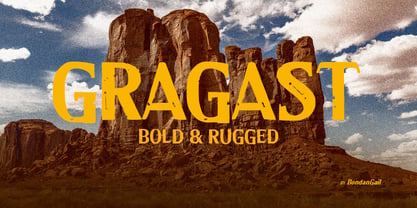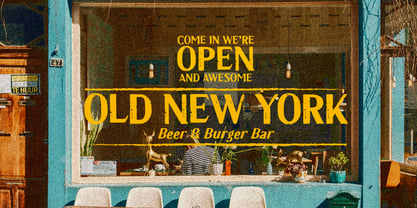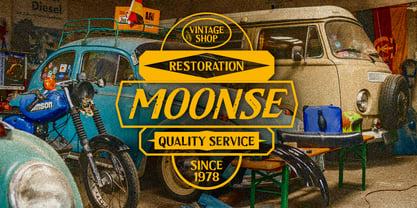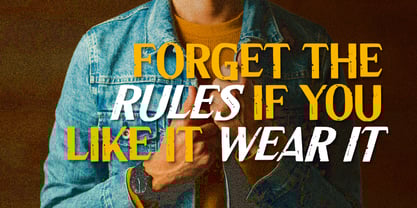
Gragast
por BondanGail
La familia tipográfica Gragast fue diseñada por Wahyu Eka Prasetya, Bondan Gail Saputro y publicada por BondanGail. Gragast contiene 2 estilos y opciones de paquete familiar.
Gragast Font is perfect for people looking for vintage aesthetic or hand drawn logo. Suitable for any graphic designs such as branding materials, outdoor brands, logo, poster, t-shirt, etc.
Gragast font captures the spirit of adventure and creativity, making it a versatile choice for various design applications. Its strong visual presence ensures it can be used effectively in logos, headlines, and promotional materials, resonating with audiences who embrace the outdoors.
Gragast includes :
• 2 Style Typefaces (Regular and Oblique)
• Uppercase, Lowercase, Numeral, Symbol and Punctuation
• Multilingual
Diseñadores: Wahyu Eka Prasetya, Bondan Gail Saputro
Editorial: BondanGail
Fundición: BondanGail
Propietario del diseño: BondanGail